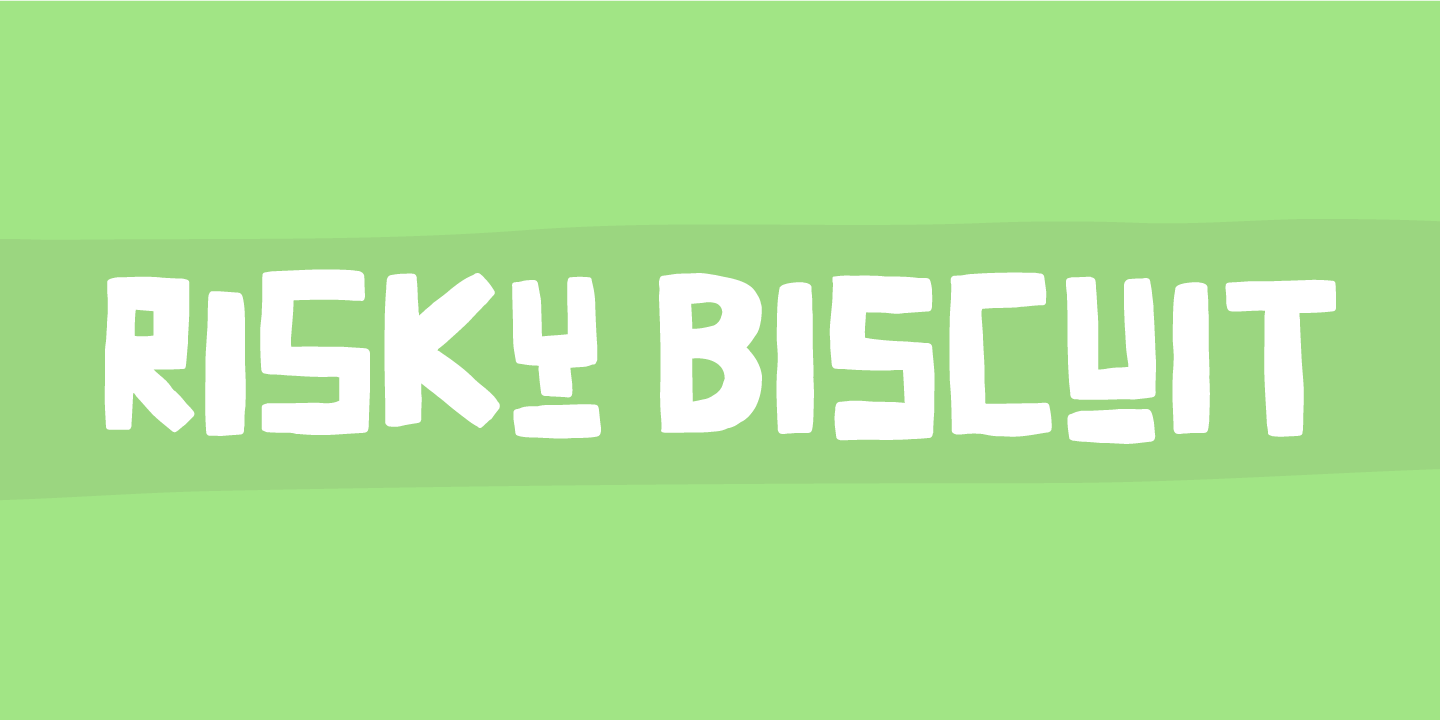
Risky Biscuit Font is perfect for bakery branding, restaurant menus, food truck graphics, vintage-style posters, craft beer labels, coffee shop signage, artisan product packaging, rustic wedding invitations, and nostalgic advertising campaigns that require a handcrafted aesthetic.
Risky Biscuit Font brings excitement through its playful and quirky character design that captures the essence of homemade charm and artisanal craftsmanship. This delightfully unconventional typeface combines rustic elegance with modern readability, creating a perfect balance between casual friendliness and professional appeal. The font's organic letterforms and distinctive personality make every word feel warm and inviting.
Risky Biscuit Font family includes Regular, Bold, Light, Condensed, and Outline variations. Each style maintains the font's characteristic handcrafted appearance while offering different weights and treatments for versatile design applications across various creative projects.
The authentic charm of Risky Biscuit Font Free Download lies in its ability to evoke feelings of comfort, tradition, and artisanal quality. Whether you're designing for food businesses, craft industries, or lifestyle brands, this font adds personality and warmth to your visual communications.
Risky Biscuit Font excels in both traditional and contemporary design contexts, bringing a touch of handmade authenticity to digital and print materials. From storefront signage to social media graphics, this versatile typeface creates memorable brand experiences that resonate with audiences seeking genuine, heartfelt communication.